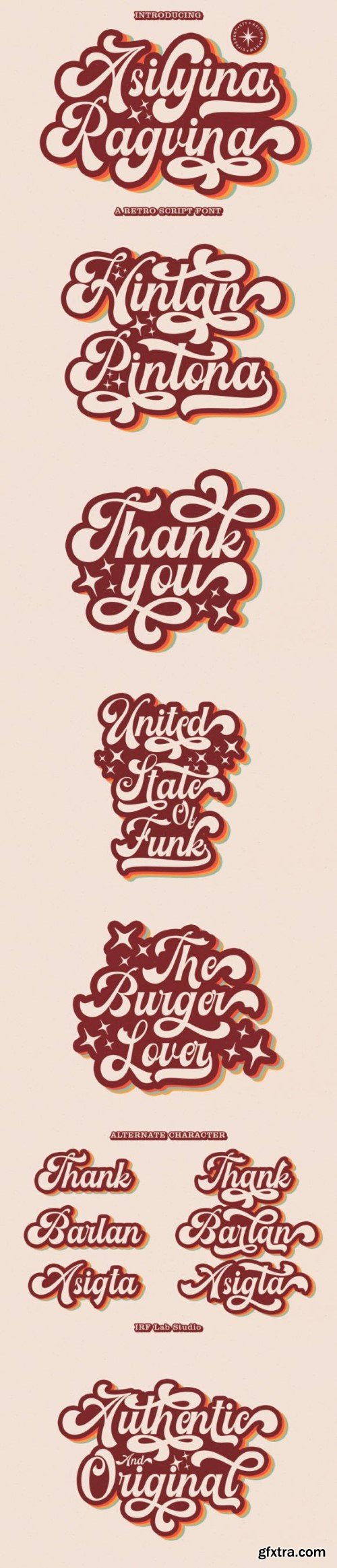
阿斯利娅·拉格维纳字体
Asilyina Ragvina – Classic Retro Font, with curves and lines so soft that this font looks pretty and realistic.
With 355 Characters, Asilyina Ragvina is perfect for all your design projects, like invitation cards, product logos, food brands, logos, and much more. This font is PUA encoded which means you can access all of the amazing glyphs and ligatures with ease!